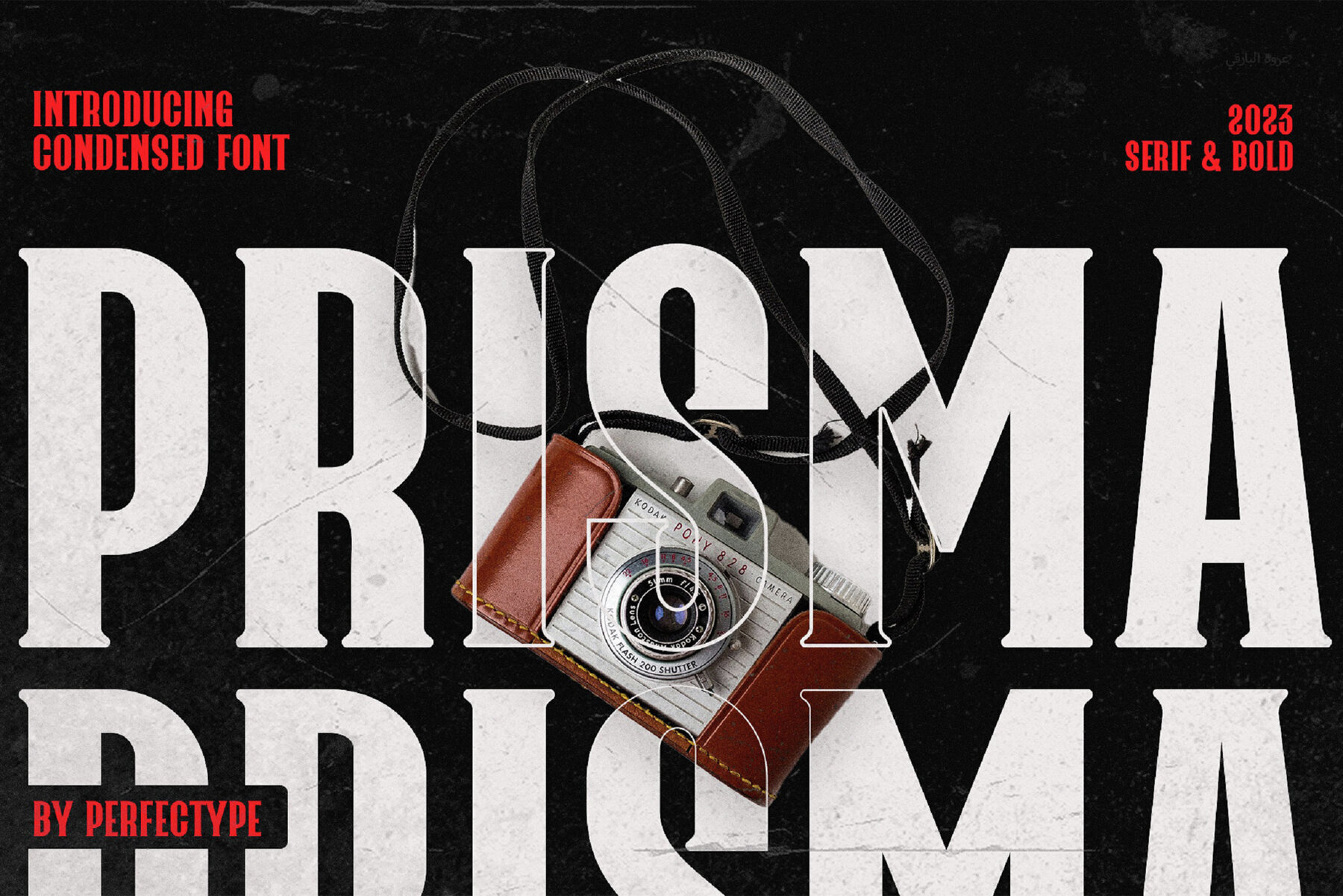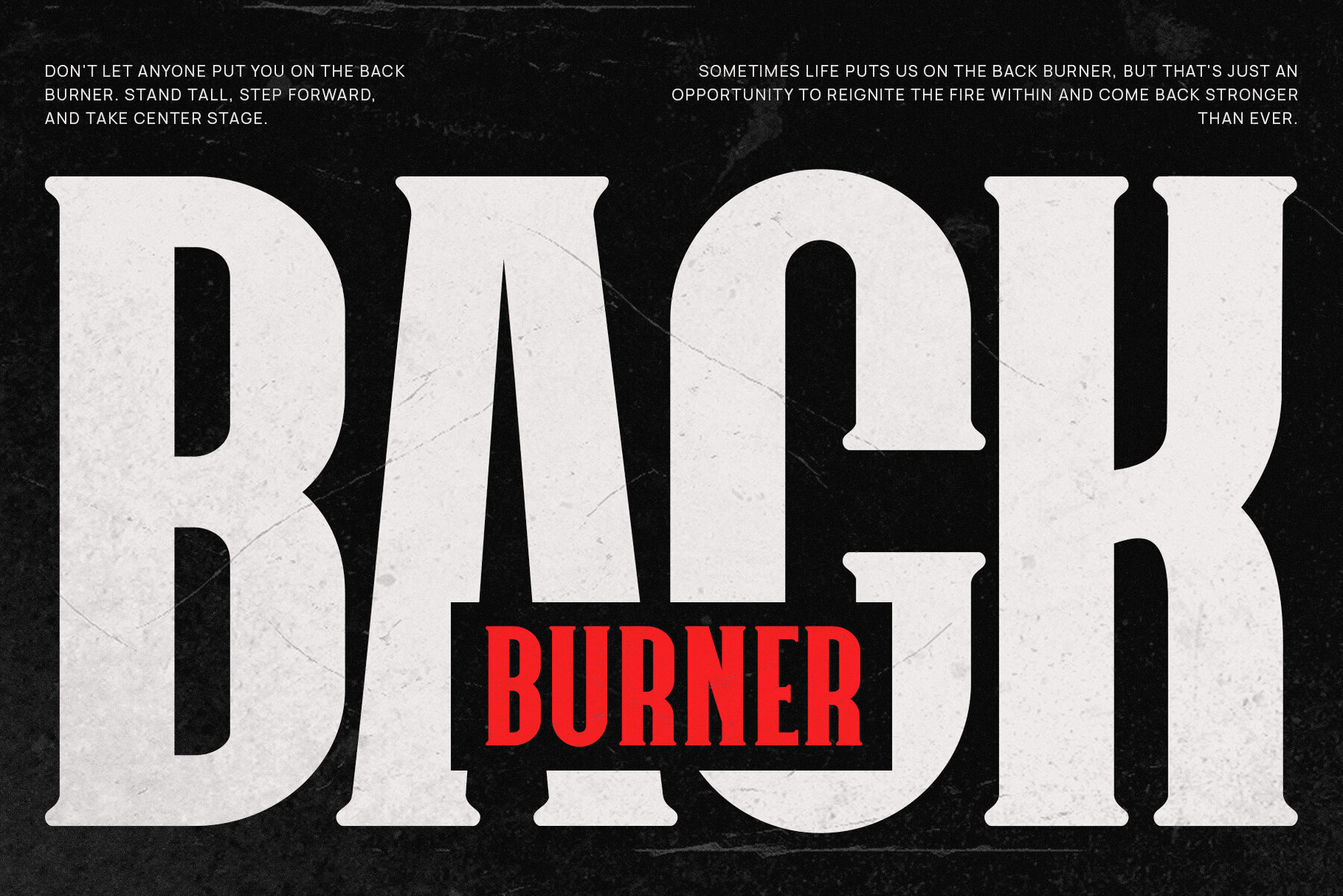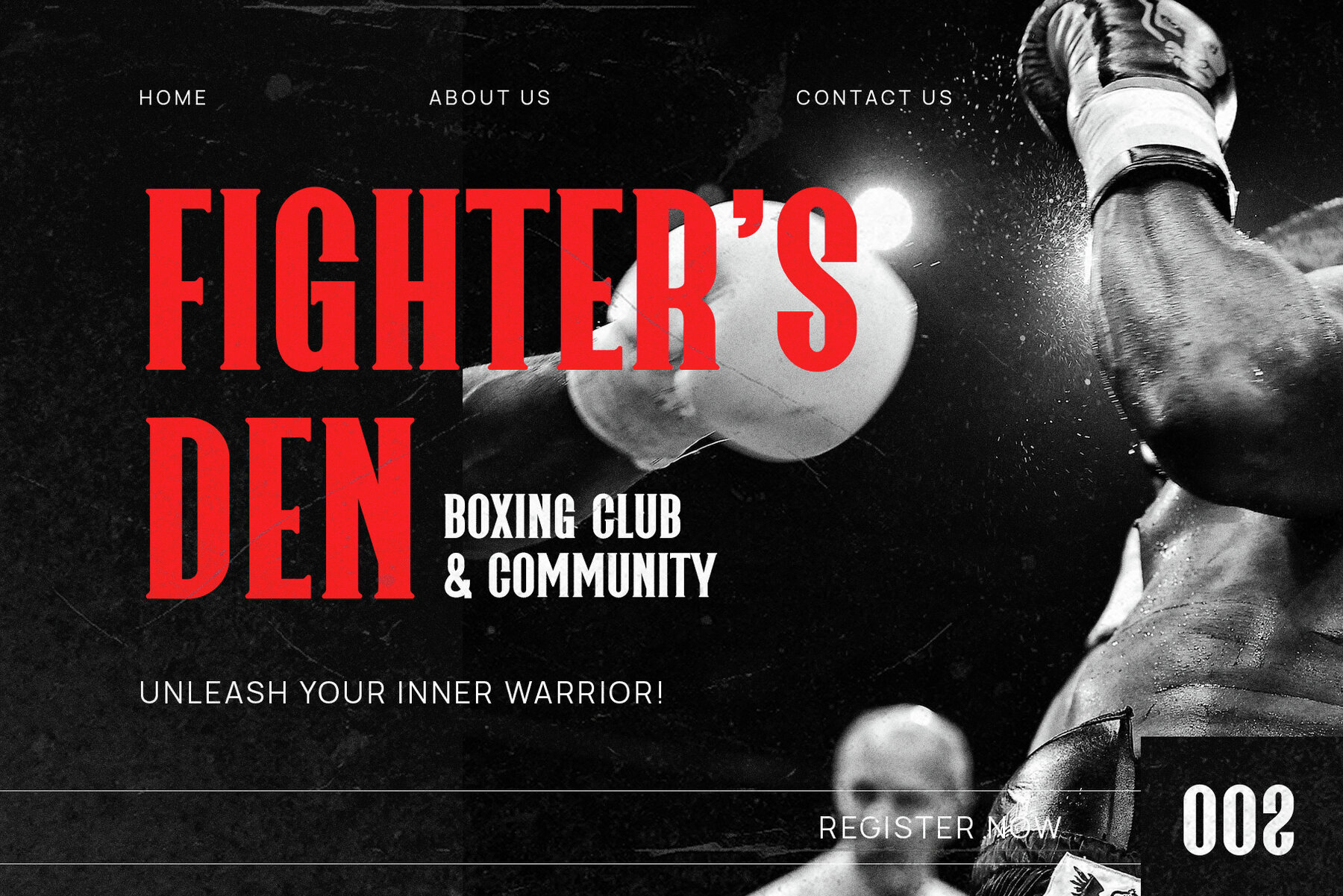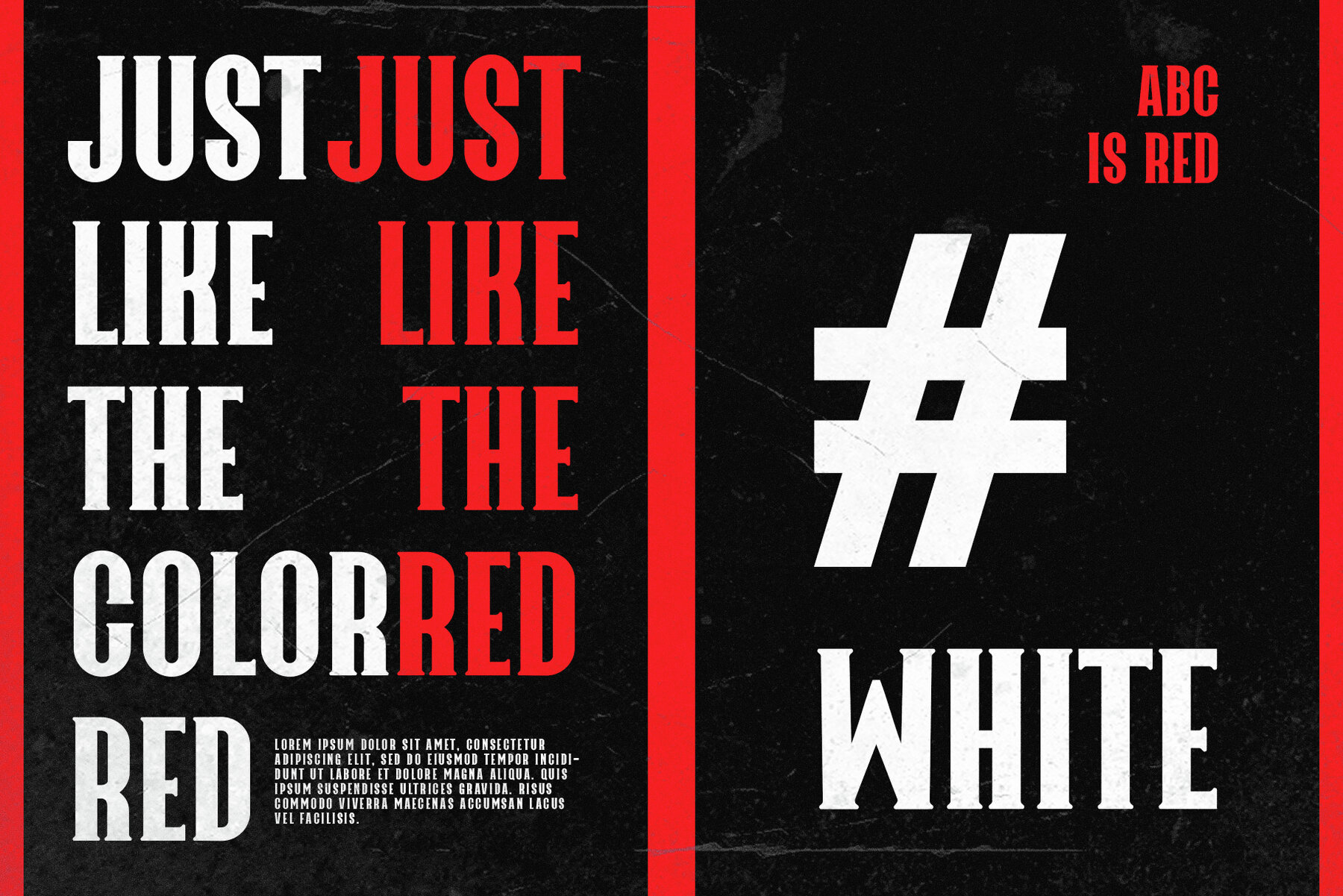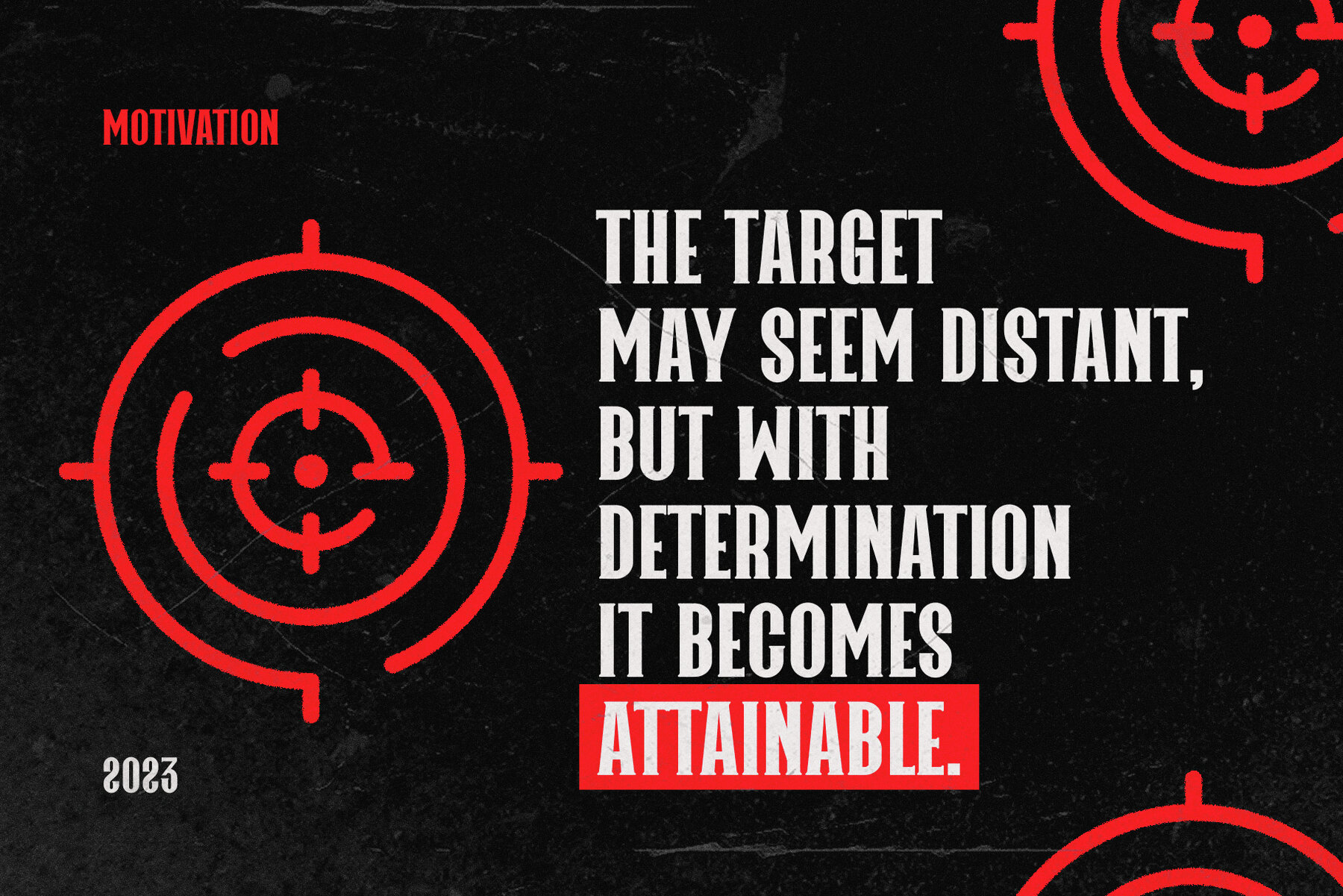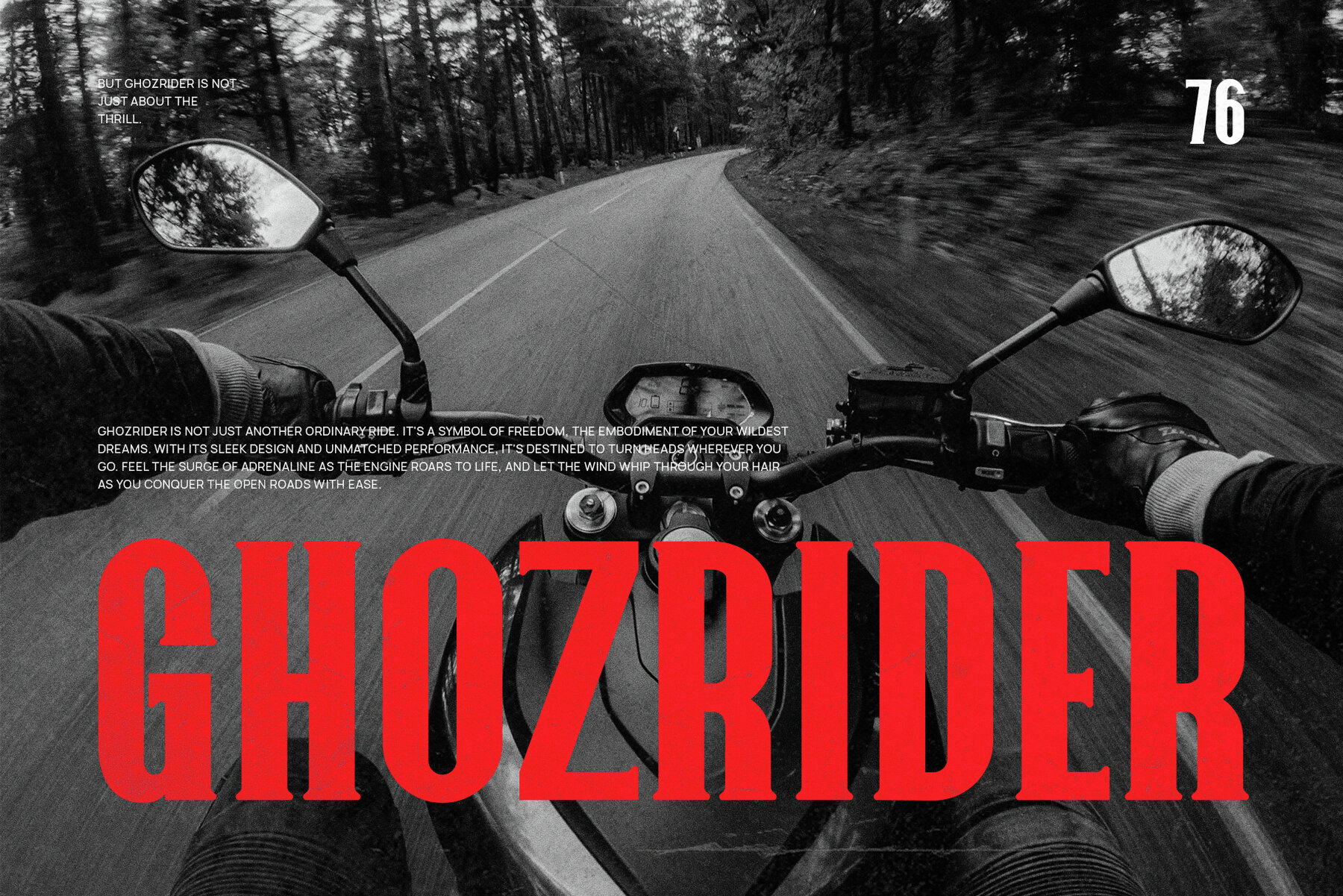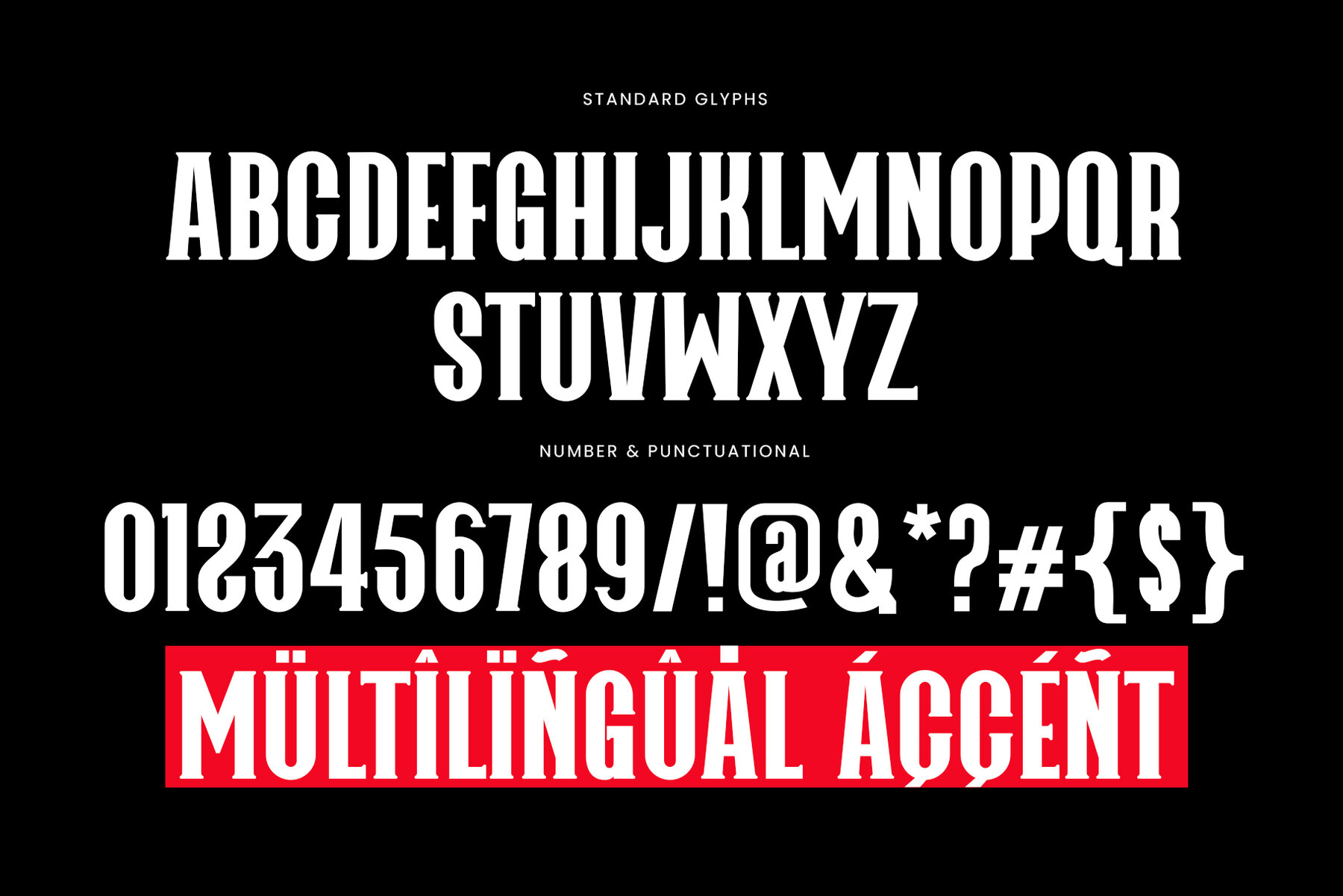
Prisma Vintage Font
Prisma Regular
Prisma Vintage is a Serif Font with a classic, vintage aesthetic. Ideal for branding, logos, magazine layouts, t-shirts, advertisements, Canva projects, music covers, and concerts. This font includes character standards, numbers, punctuation, and accented characters for Western Europe. Optimal performance when used with Adobe Illustrator or Photoshop. Perfect for designers looking to add a timeless touch to their projects.